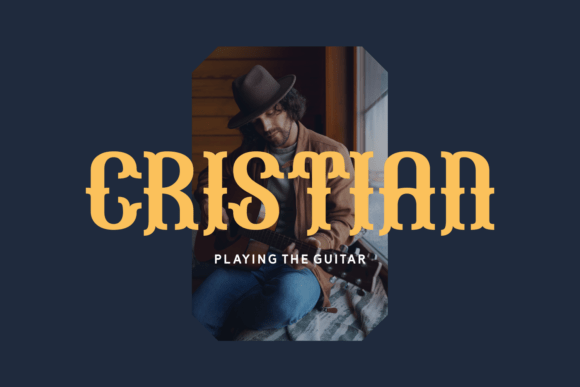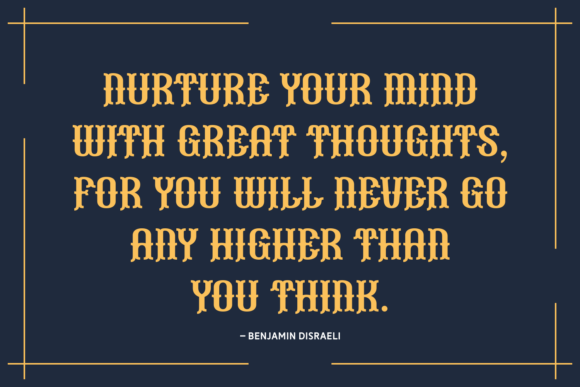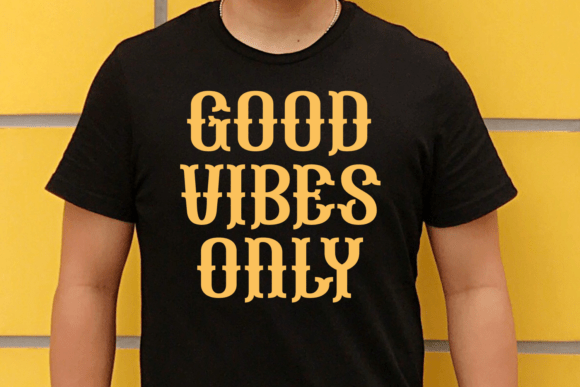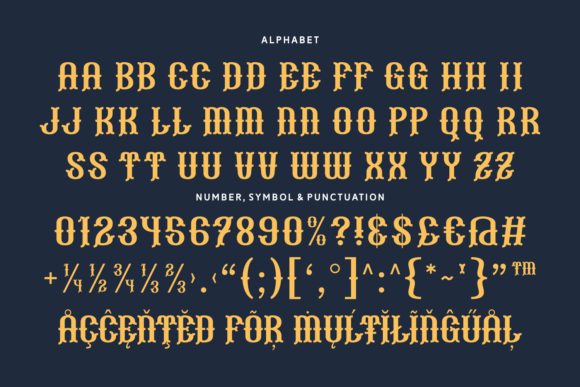
Introduction to Smart Elegant Font
Remember the moment when you finally find the perfect font for your creative project? The one that elevates your design from ordinary to extraordinary? That’s exactly what happens when you discover the Smart Elegant Font. This refined blackletter font is a game-changer for designers seeking to add a touch of sophistication to their work.
Whether you’re working on a luxury branding project, designing vintage packaging, or crafting invitations, the Smart Elegant Font is an invaluable resource. Its unique blend of bold gothic strength and elegant curves creates a clean yet ornate look that’s perfect for making a statement. With its high-quality design and versatility, this font is a must-have in any designer’s toolkit.
Key Features of Smart Elegant Font
- Includes a comprehensive set of characters, including uppercase and lowercase letters, numbers, and punctuation
- Features a clean and modern aesthetic, making it ideal for use in graphic design, web design, and digital publishing
Honest Review: Smart Elegant Font
As a designer, I’m always on the lookout for high-quality design resources to elevate my creative projects. I recently stumbled upon the Smart Elegant Font, and I’m excited to share my thoughts on this font.
However, I do have a few reservations: ⚠️ The font’s range is somewhat limited, making it less suitable for projects that require a wide range of font styles. Additionally, some of the characters may not display correctly in certain contexts, which can be frustrating.
Overall, the Smart Elegant Font is a great addition to any design resource library. While it may not be perfect, its high quality and sleek design make it a valuable asset for any creative project.
Here are some key features of the Smart Elegant Font:
- High-quality, modern design
- Suitable for logos, graphics, and other creative projects
Key Features and Tips
The Smart Elegant Font features a transparent background, making it ideal for use on images or videos with complex backgrounds. To get the most out of this font, experiment with different font sizes and styles to create a visually appealing design. You can also use the font in combination with other design elements to create a high-quality and professional-looking design.
The Smart Elegant Font is commonly used in a variety of creative projects, including business cards, brochures, and social media graphics. Its elegant and sophisticated design makes it perfect for use in high-end marketing materials and presentations.